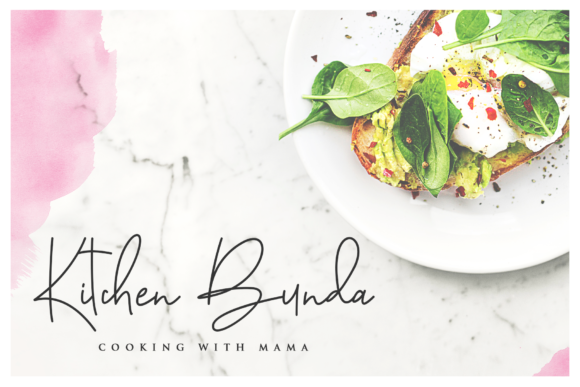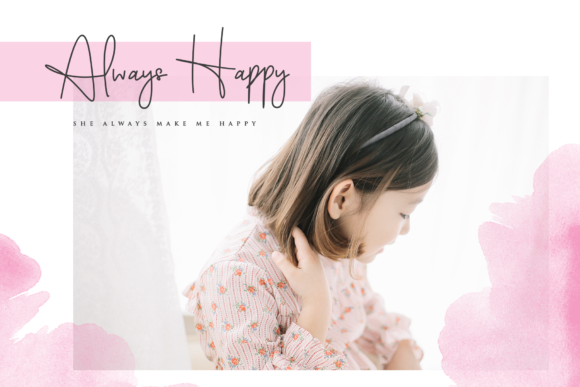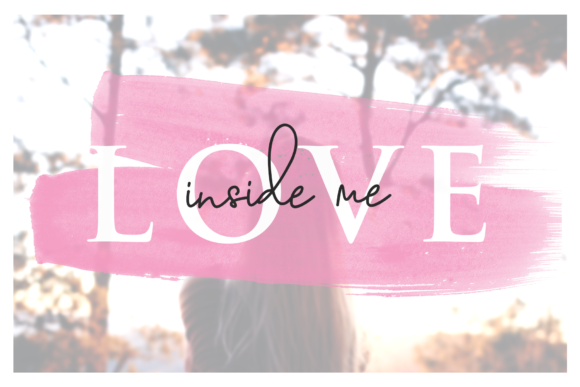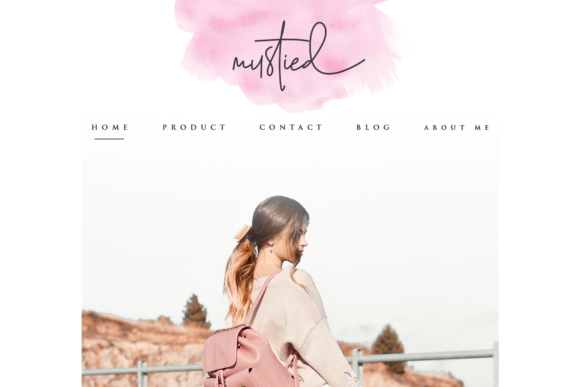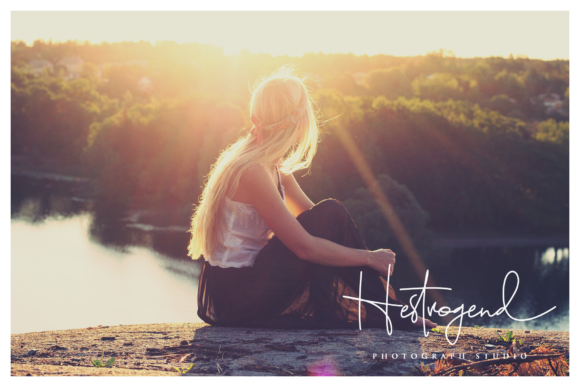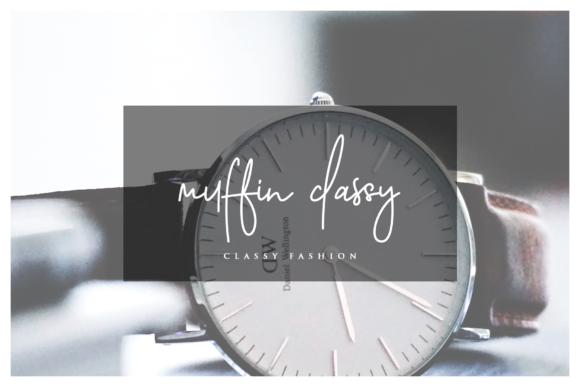
A Fresh Twist on Authenticity
Have you ever found yourself pouring over a blank page, struggling to find the perfect font to bring your design to life? It’s a feeling we’ve all been there – the blank page staring back at us, waiting for that spark of creativity to ignite. Sometimes, it’s not about finding the most unique or trendy font, but rather embracing the authentic and elegant feel that only a handwritten touch can provide.
Enter the Austin Pen Font, a beautiful handwritten signature script that embodies the essence of natural and stylish flow. This authentic handwriting font is the perfect addition to any design, adding a classic and timeless feel that’s hard to replicate with digital fonts. Whether you’re a seasoned designer or just starting out, the Austin Pen Font is a valuable tool in your arsenal, allowing you to bring a touch of elegance and sophistication to your work.
Austin Pen Font Key Features
- Font Style: Handwritten, Script Font
- Unique Characteristics: Features a custom-designed, handwritten feel with subtle variations in letterforms, making it suitable for creative and artistic applications
Austin Pen Font Review
I recently had the chance to work with the Austin Pen Font, and I must say it’s a solid choice for designers looking for a classic, elegant feel.
- Highly legible: The font is designed to be easily readable, even at smaller sizes.
- Classic aesthetic: Austin Pen Font has a timeless look that’s perfect for traditional or vintage-themed designs.
- Good for body text: The font is suitable for large blocks of text, making it a great choice for articles, essays, or books.
- Limited character set: Austin Pen Font may not be suitable for languages that require a wide range of special characters or symbols.
- Not ideal for headings: While the font is great for body text, it may not be the best choice for headings or titles, as it can become too monotonous.
Austin Pen Font is a reliable choice for designers who want a classic, elegant look. While it may have some limitations, its legibility and timeless aesthetic make it a great option for a variety of projects. Just be sure to consider the font’s limitations when making your selection.
Use the Austin Pen Font for titles, headings, and quotes to add a touch of elegance to your designs.
Experiment with different font sizes and styles to create a unique visual hierarchy.
Combine the Austin Pen Font with other fonts to create a visually appealing typography.
The Austin Pen Font is perfect for:
Business cards and marketing materials.
Quotes and inspirational graphics.
Any design that requires a touch of sophistication and elegance.
Alternatives to Austin Pen Font for Designers
Great Vibes is a modern, elegant script font perfect for creative projects, branding, and invitations. It features flowing connections and smooth lines, making it ideal for use in logos, headings, and titles. When to use: For projects requiring a sophisticated, high-end feel.
Comparison: Great Vibes has a more refined, luxurious feel compared to Austin Pen Font, which is more casual and handwritten. Great Vibes is better suited for formal designs, while Austin Pen Font excels in informal, creative projects.
Lobster is a fun, cursive font ideal for projects requiring a playful, energetic feel. It features thick lines and bold connections, making it perfect for use in headings, titles, and social media graphics. When to use: For projects requiring a lively, attention-grabbing atmosphere.
Comparison: Lobster has a more dramatic, attention-grabbing feel compared to Austin Pen Font, which is more understated and casual. Lobster is better suited for projects requiring a bold, energetic tone, while Austin Pen Font excels in more subtle designs.
Playfair Display is a luxurious, elegant serif font perfect for high-end branding, magazines, and books. It features intricate details and classic lines, making it ideal for use in headings, titles, and large blocks of text. When to use: For projects requiring a sophisticated, high-end feel.